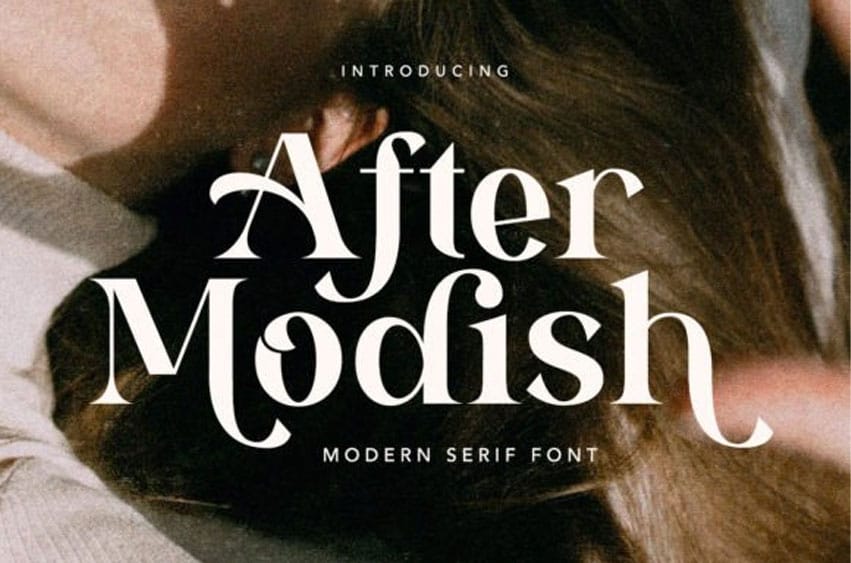
After Modish Font is a modern bold serif with a bunch of stylish ligatures and alternates. You can use this font for many purposes.
It’s suitable for branding, quotes, or wedding invitations. With many choices of alternatives, you can make your design stand out! Modish also supports multiple languages.